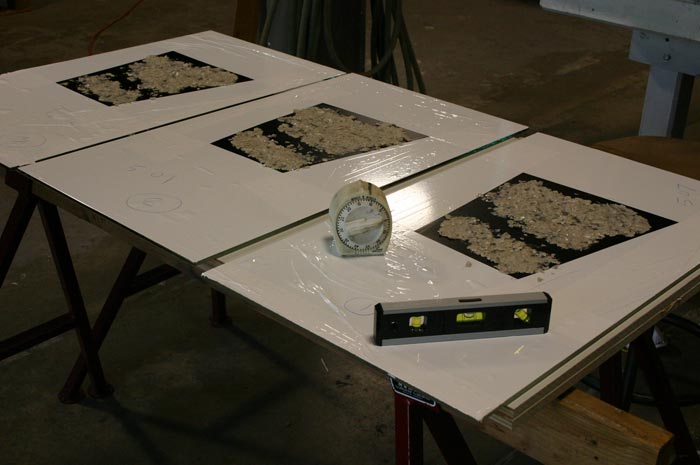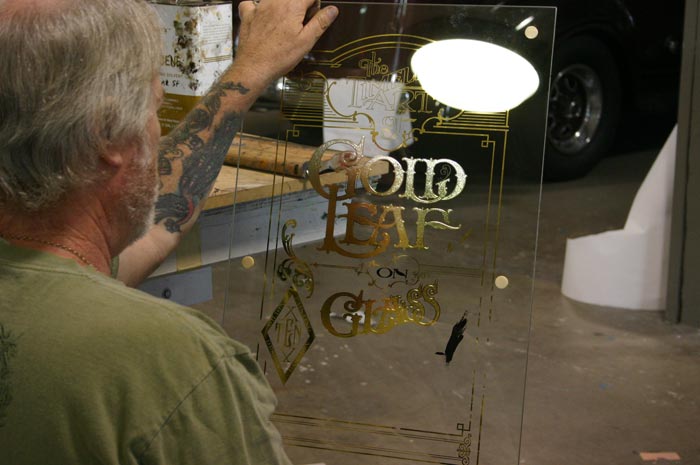
oct 10 gold leaf workshop in Boise
Here are a couple of progress shots. We acid etched the type, then did a gilded blend 12k to 23k. Boarders and other elemnts shades of gold. Lots more work, were having fun.
You have three pieces lined up in the bottom photo. Are those pieces ones you are doing as samples? Or are they actual class pieces you are going to have ready for the people taking the workshop?
Sounds like a fantastic workshop!
That is a nice project piece!
Very nice project piece!
The 3 panels are actual pieces for the attendees, everyone gets a pre-etched panel to speed up the work, they will also get to Acid Etch & Glue Chip another piece to experience the techniques.
The panels were screened with an experimental resist being developed by Pat Mackle & it worked very well, double print, let dry for at least a day, longer would be even better, then a solution of 48% Hydroflouric Acid mixed with 2 parts water & mica flakes to a paste consistency, food dye added for safety purposes. The mixture was then applied for 15 minutes to give the stippled effect.
We then blend gilded a couple of panels to be ahead fo the game for demonstration purposes, outlines & the flower art were then added to work out the color scheme......so far so good.
We will be adding more images later..........
The only thing I am concerned about at this point is how people will be able to ship the pieces when they are traveling by plane?....
Yup level and 15 minutes to go! Cant wait to see the other side!!
Along with the oak frames for the projecets, special carrying cases are being made for that purpose, so don't be worried, they will be safe............